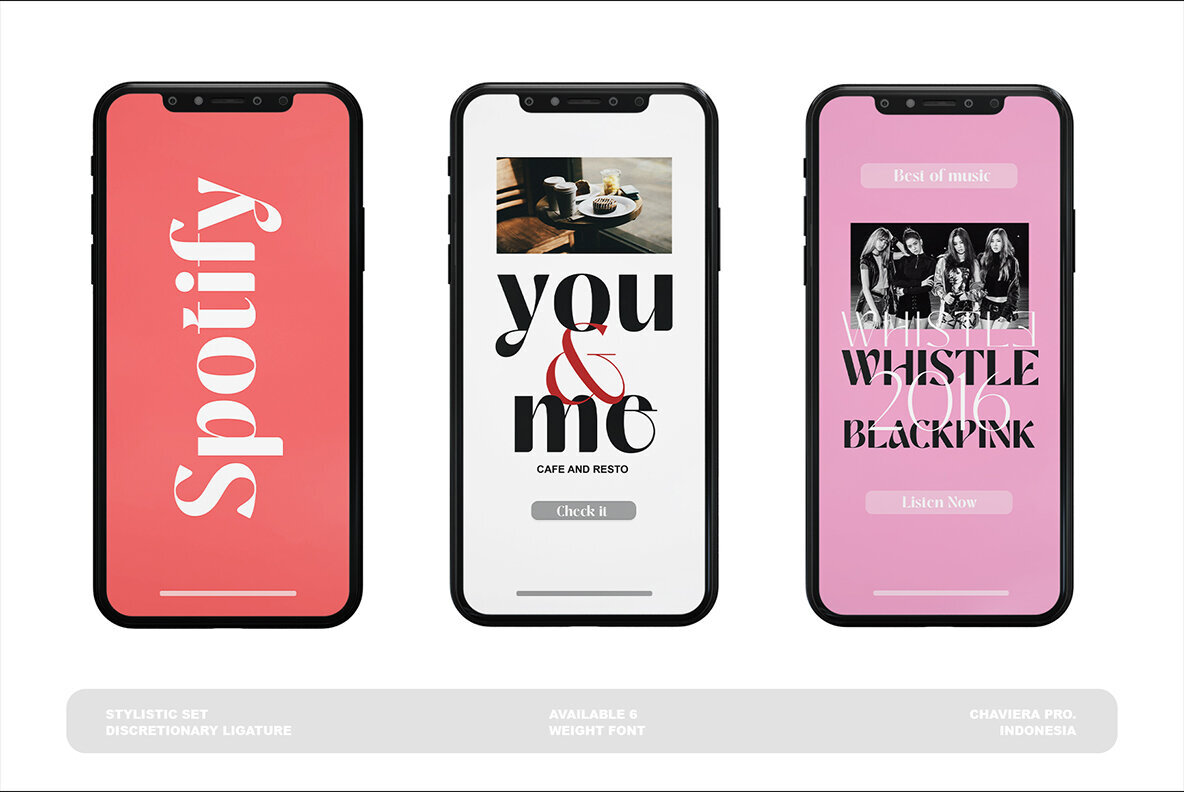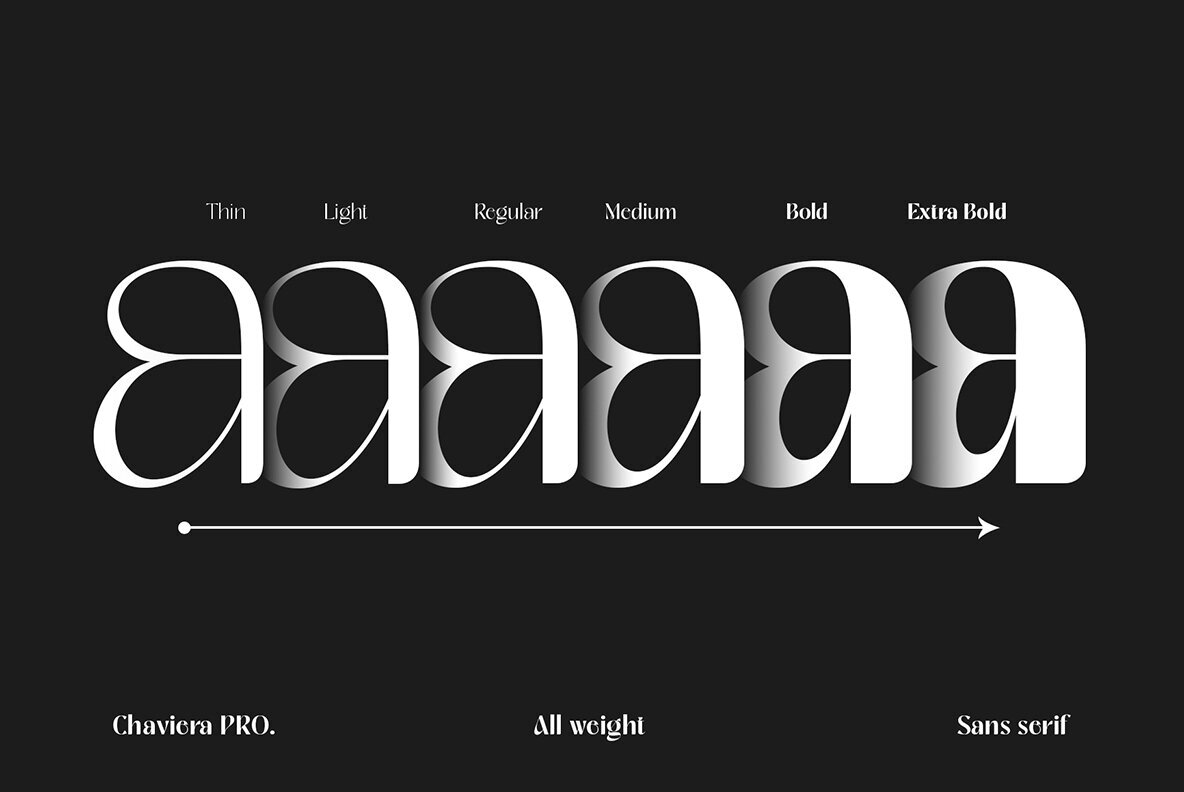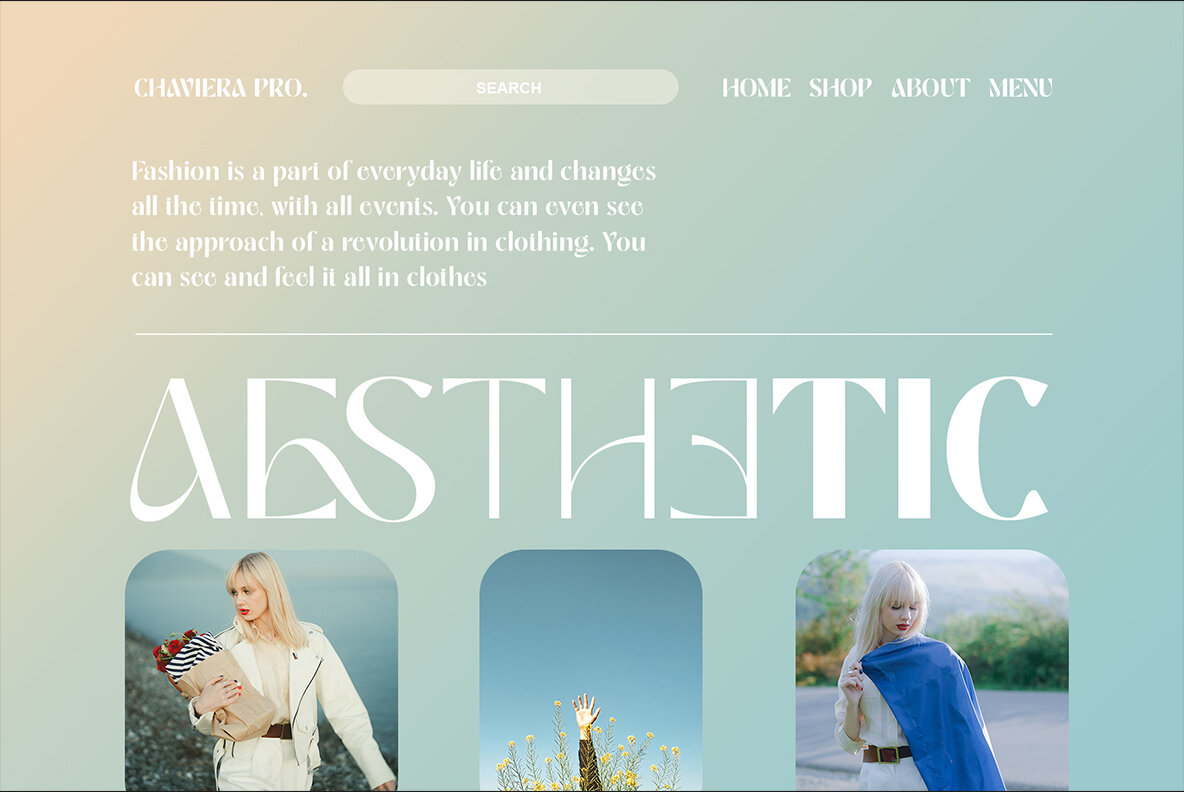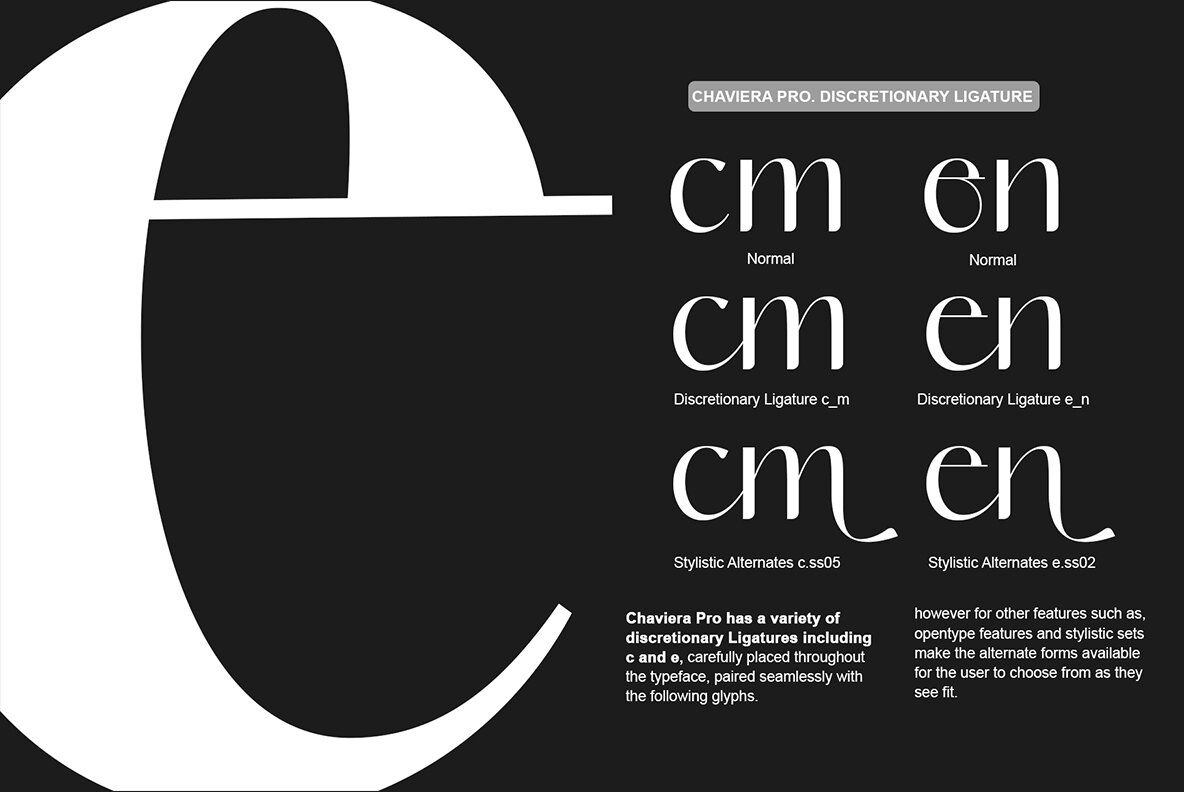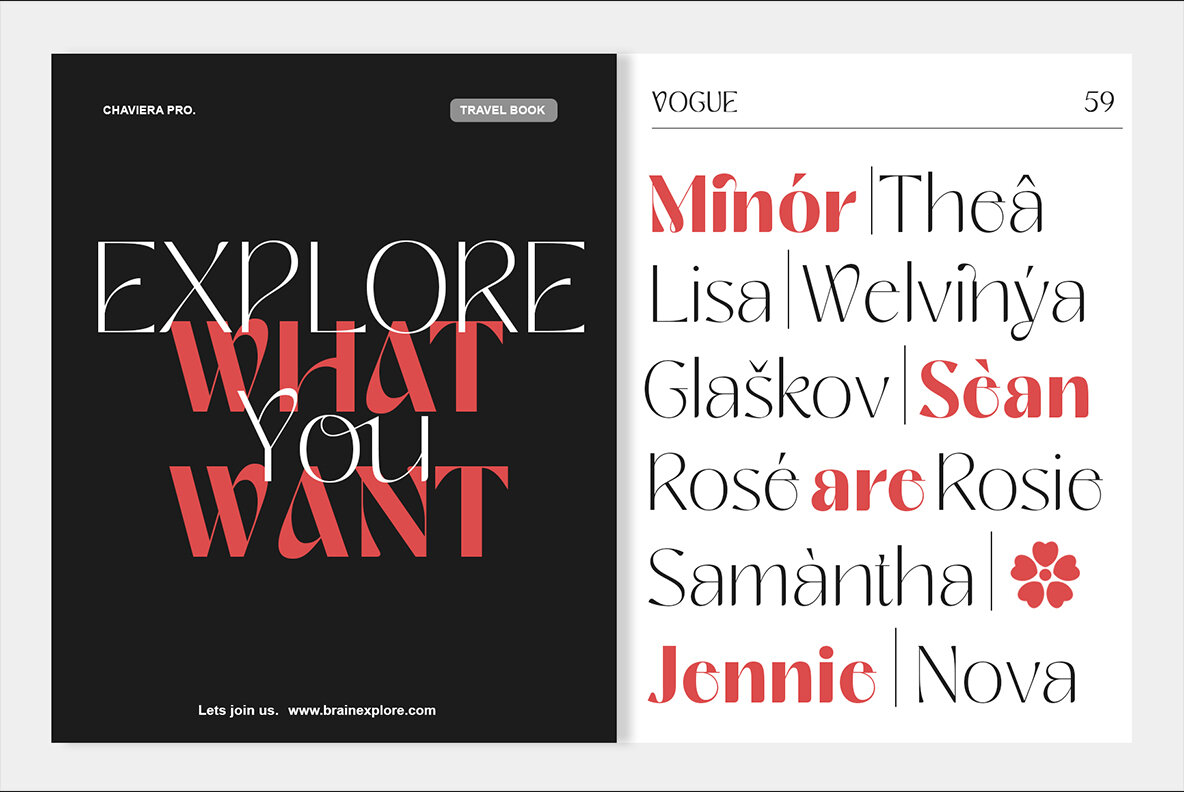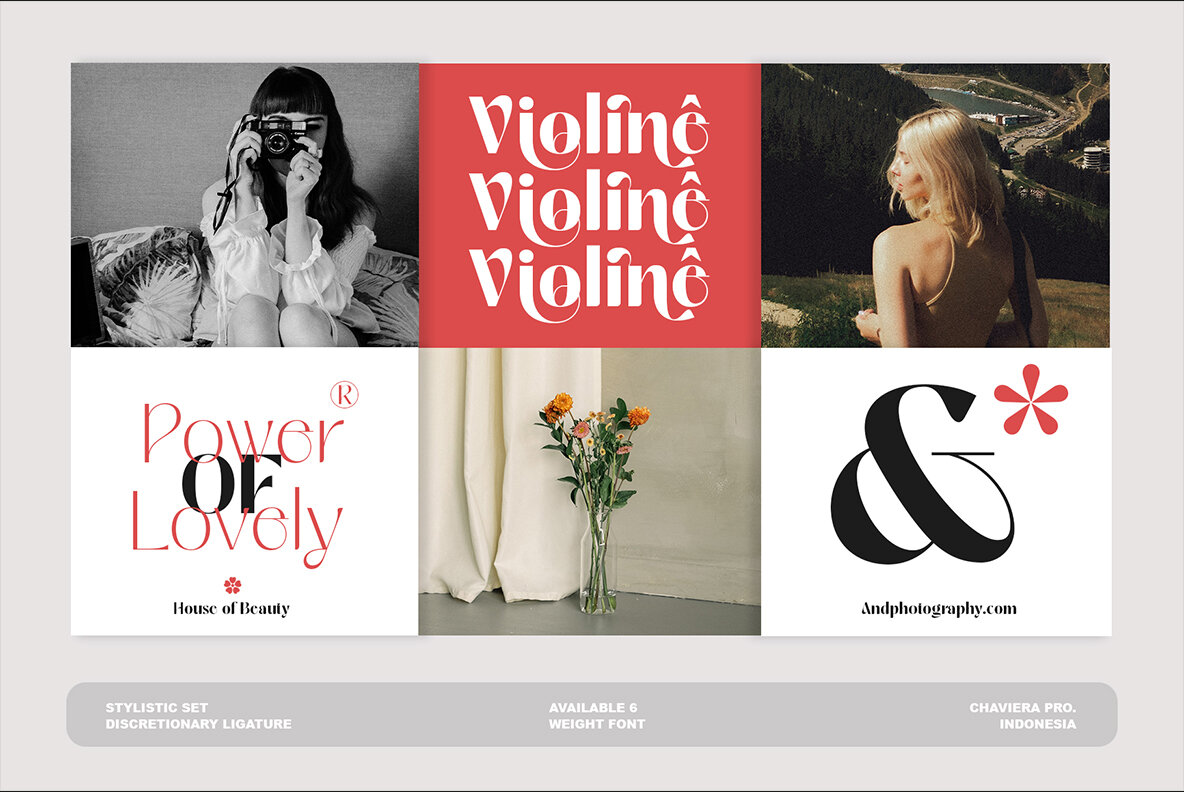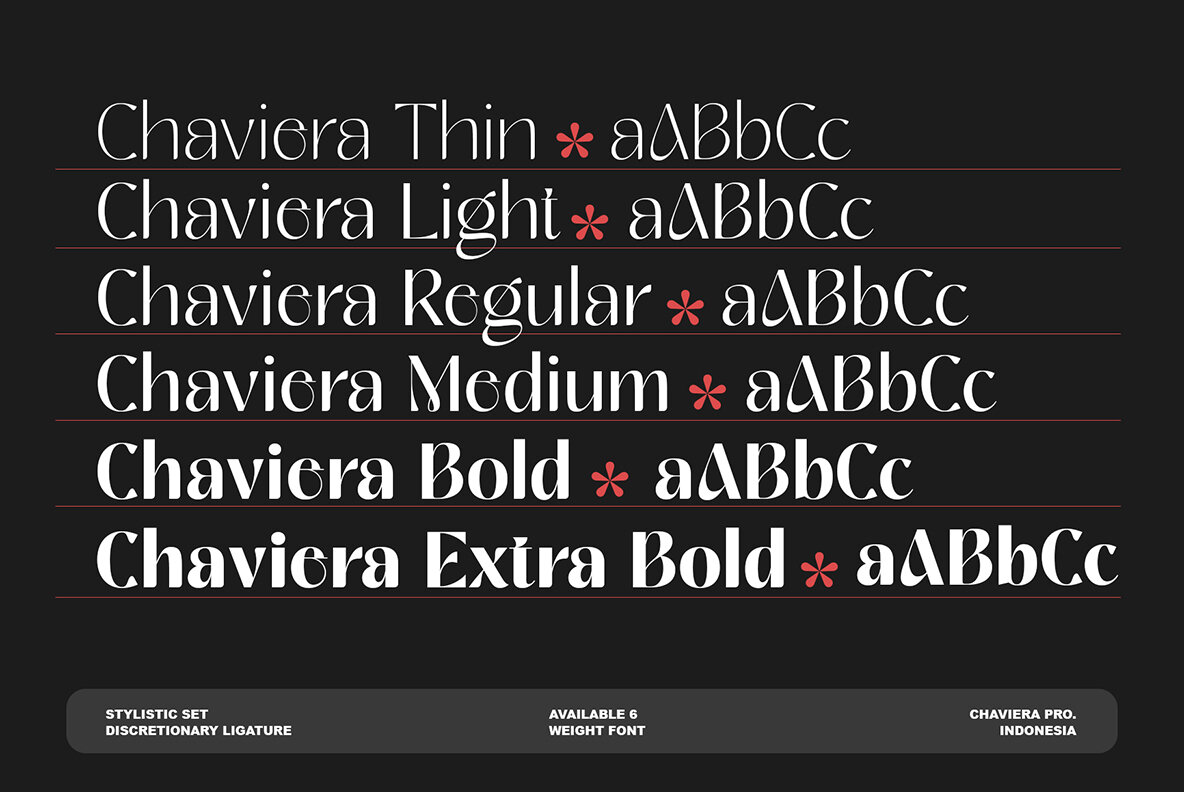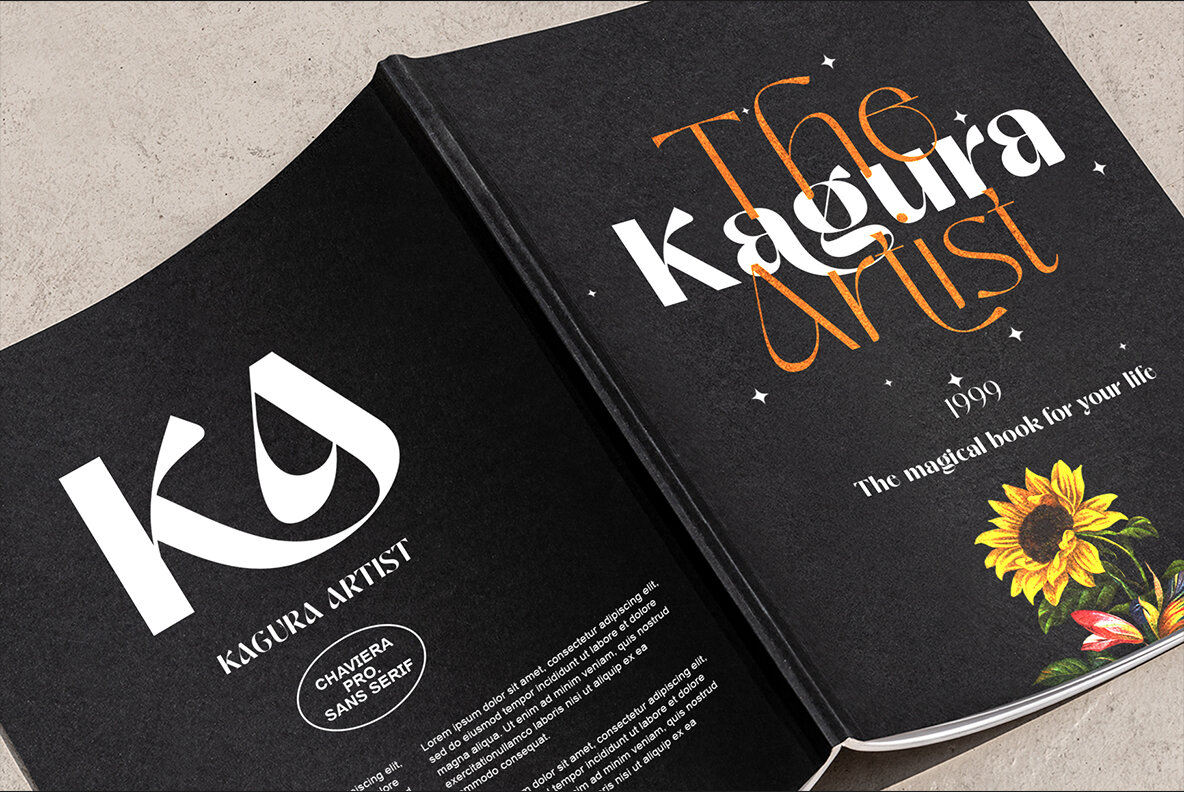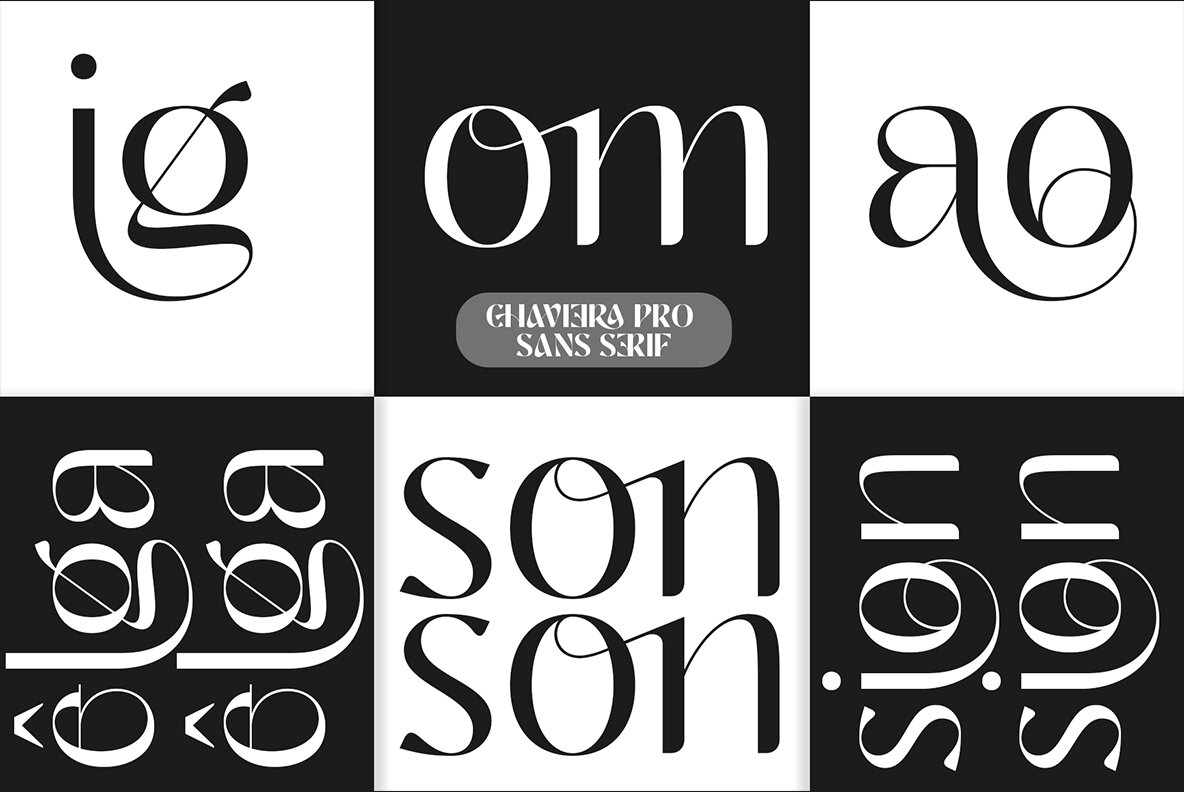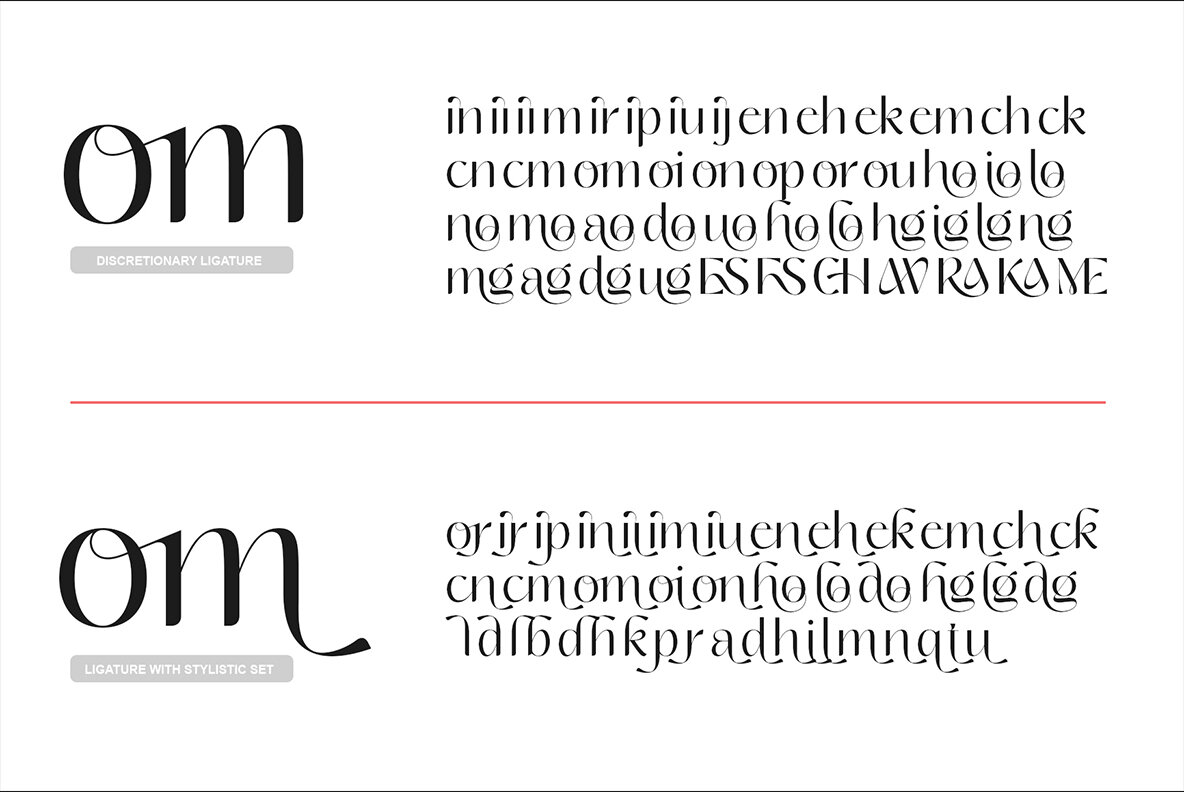
Chaviera Pro Font
Chaviera Pro offers a seamless blend of classic elegance and modernity, with its distinctive sans-serif display typeface. Its feminine allure is complemented by beautiful alternate stylistics, making it an ideal choice for a wide range of creative projects. This versatile font elevates various designs, from logos and branding to wedding invitations and social media posts. Whether you're working on stationery, advertisements, or product packaging, Chaviera Pro brings a sophisticated touch to your creations.Chaviera Pro: Elegant Sans-Serif with a Feminine Touch